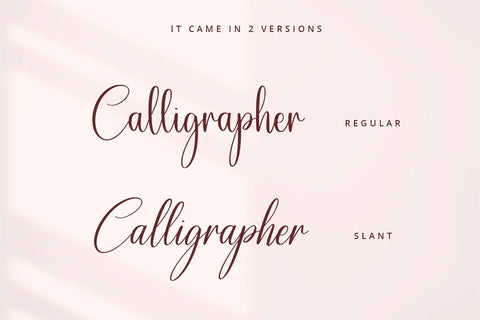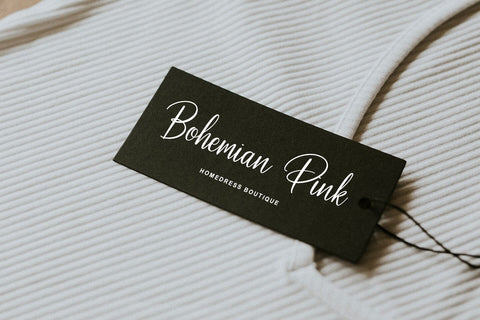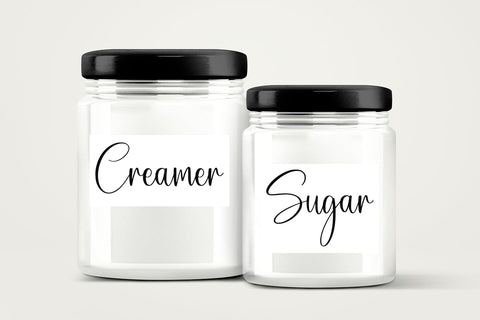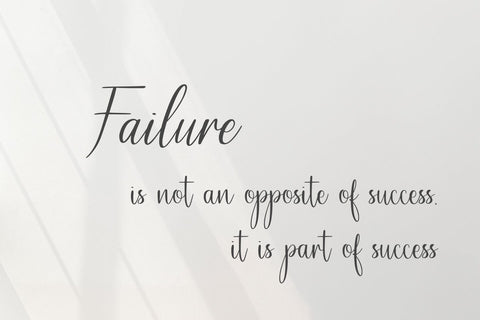
Wintermelon
introducing
WINTERMELON
- balanced calligraphy font -
WINTERMELON is natural handwriting font.
It is great for branding, quotes, logos, t-shirt designs, tote bag designs, cards, banners, social media, and more.